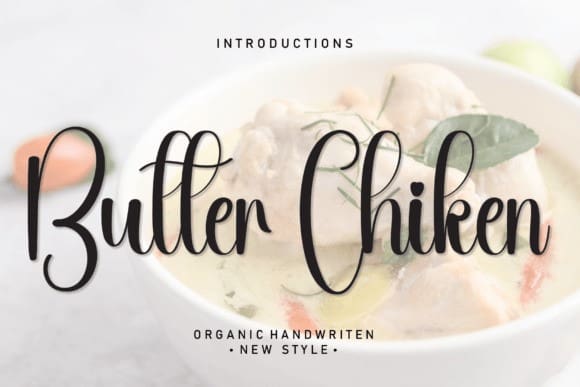
Butter Chiken Font
Butter Chiken Font is a sweet and friendly handwritten font. Fresh and neat, this font is ideal for writing wedding invitations, cards, or any other design that might need a fun touch!